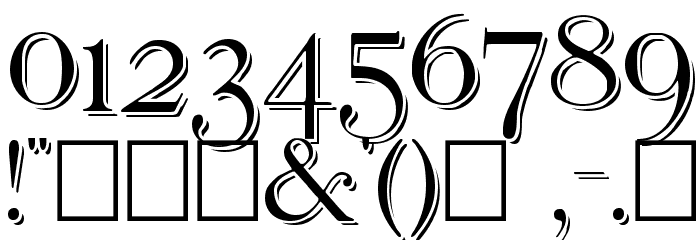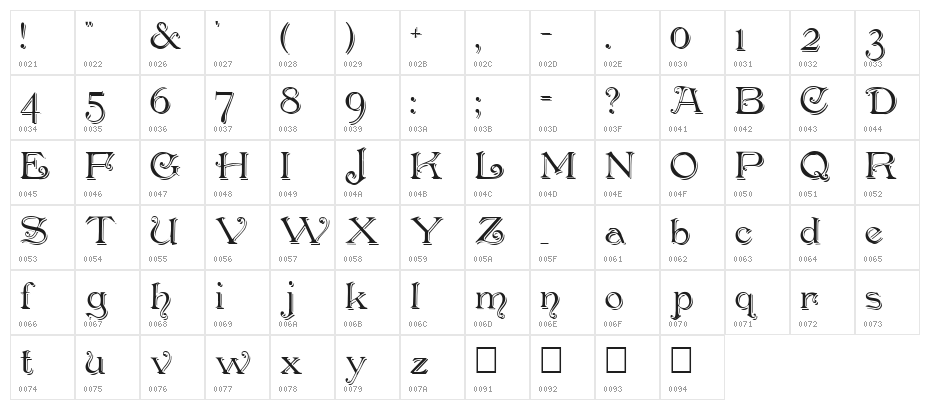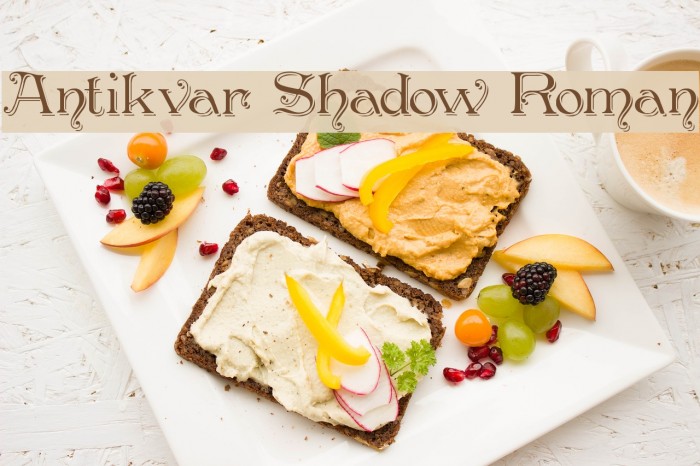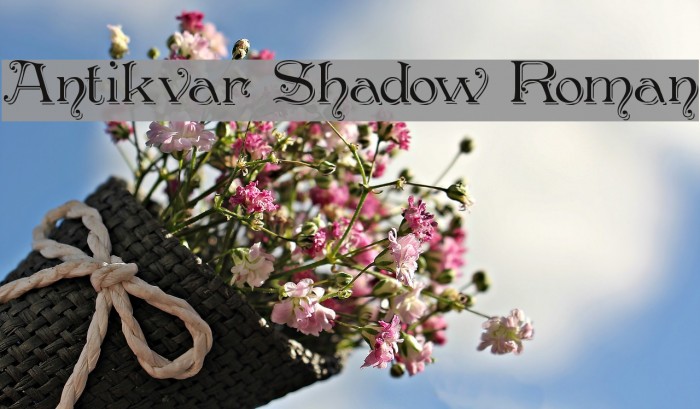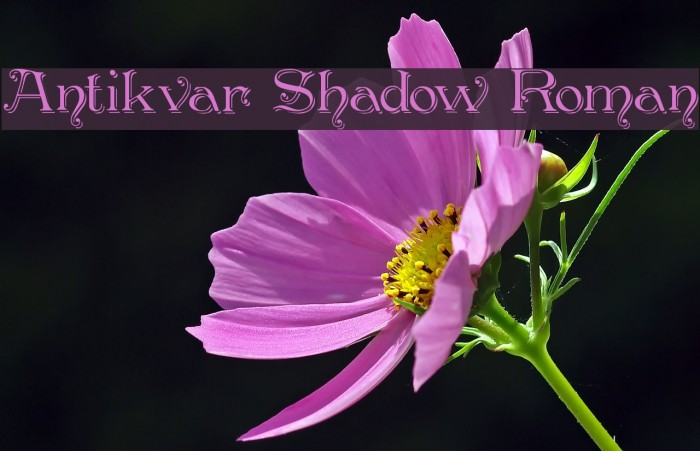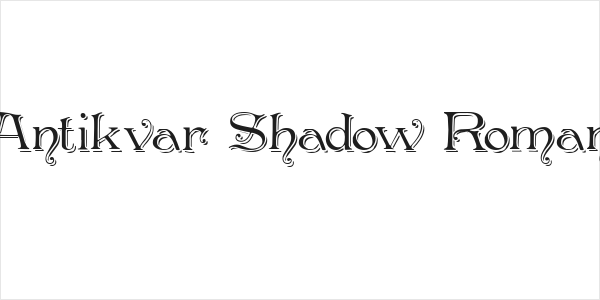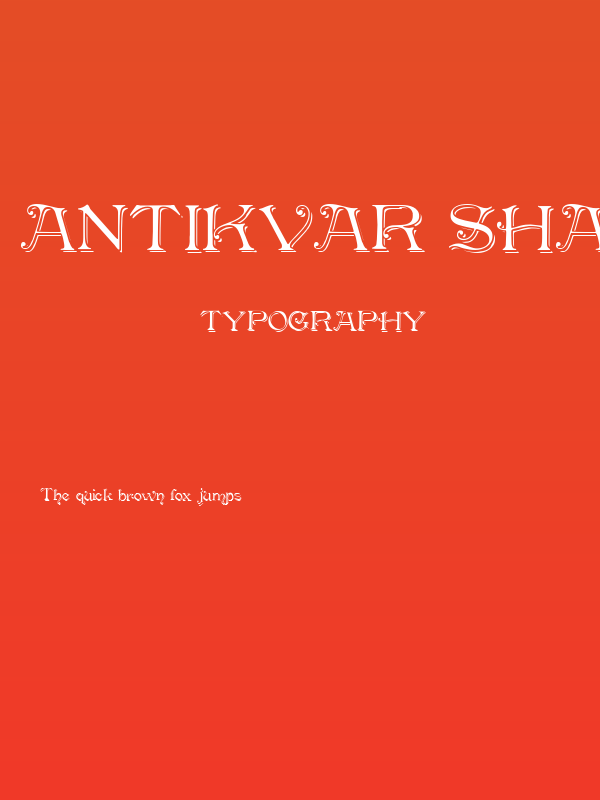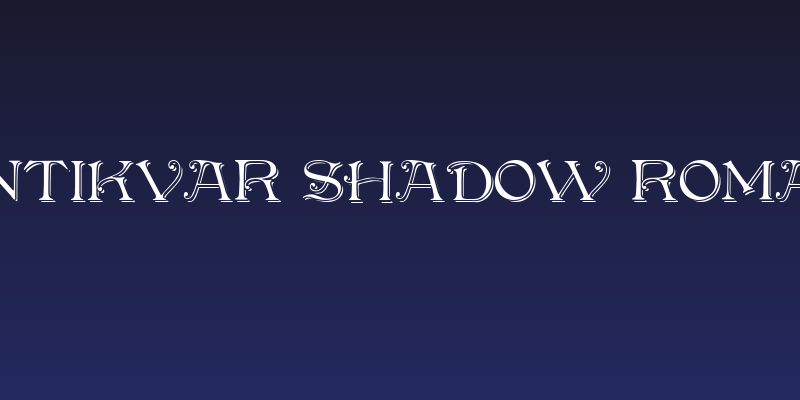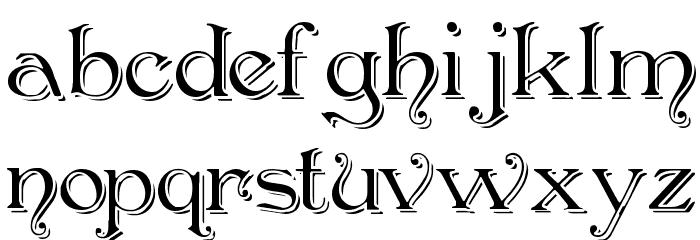
Antikvar Shadow Roman Font
Antikvar Shadow Roman Description
This font features a distinctive shadow effect that gives each character a three-dimensional appearance. The serif style is ornate, with intricate detailing on the strokes, adding a touch of elegance and sophistication. The uppercase letters are bold and commanding, while the lowercase letters maintain a consistent style with slightly more curves. The numbers are clear and well-defined, matching the overall aesthetic of the alphabet. Special characters are included, maintaining the same decorative style. This font is ideal for projects that require a classic yet eye-catching look.
| Use Case | Headlines, Logos, Decorative text |
| Proposed Projects | Ideal for vintage-themed designs, book covers, posters, and branding that requires a classic touch. |